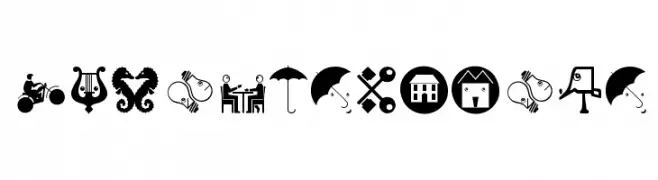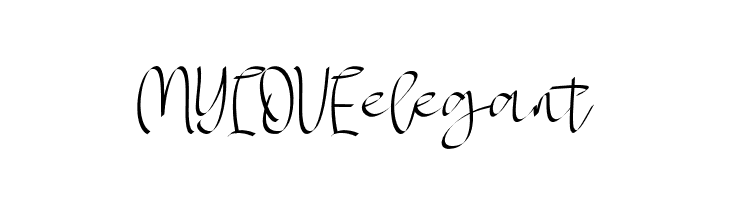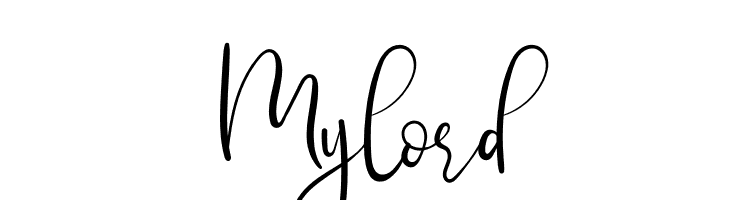
• Mylord schriftart
A flowing cursive font with elegant loops and artistic flair.
• MyLove schriftart
A bold, playful handwritten font with dynamic strokes and medium contrast.
• MyLove schriftart
A bold, brush-style script font with a playful and energetic vibe.
• MYLOVEelegant schriftart
An elegant, cursive font with flowing, sophisticated characters.
• MyLovely schriftart
A whimsical script font with heart motifs and flowing cursive style.
• MyLovely schriftart
A whimsical script font with heart motifs and elegant cursive flow.
• myloves schriftart
A playful, handwritten script font with a modern and decorative style.
• MyloveScript schriftart
An elegant script font with flowing, cursive letters and a romantic feel.
• MyloveScript schriftart
An elegant and sophisticated script font with flowing curves and ornate details.
• MyMaestroMrMiro schriftart
A playful, abstract, and illustrative decorative font with quirky, hand-drawn characters.